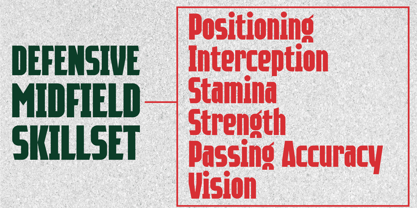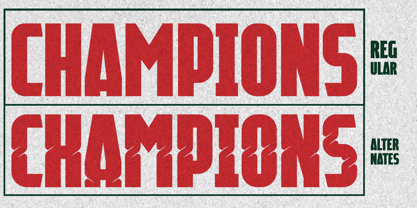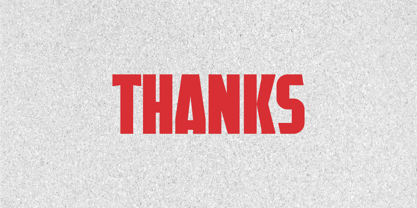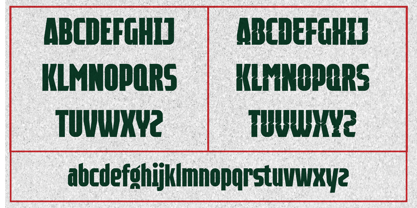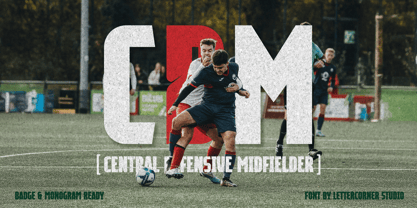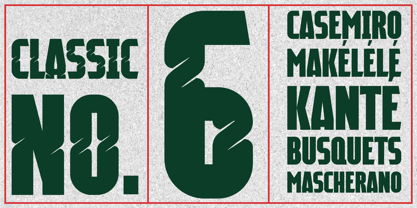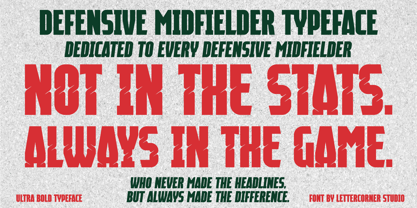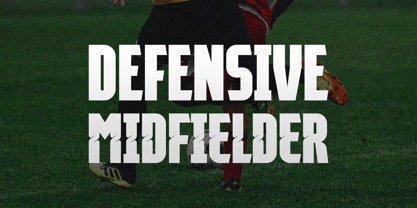
Defensive Midfielder
Defensive Midfielder is a bold, high-impact display typeface built for speed, strength, and grit — inspired by the players who control the game from the middle of the pitch without ever chasing the spotlight.
Every letterform carries the raw, torn-edge texture of a hard-fought match: sharp diagonal cuts, rugged terminals, and a slightly weathered finish that feels equal parts sportswear label and street-level grunge. The result is a typeface that commands attention on posters, jerseys, badges, and branding — anywhere you need type that hits as hard as a last-ditch tackle.
The family includes both Regular and Italic styles, each paired with a full set of stylistic alternates featuring the signature slash-cut detailing on select letters. Mix and match the standard and alternate glyphs freely to create dynamic, one-of-a-kind lockups — perfect for team crests, monograms, jersey numbers, and sports-themed lettering.
Defensive Midfielder is Ultra Bold by design — built for headlines, logotypes, and large-scale display use rather than body text. It shines in:
• Sports branding, team logos, and jersey typography
• Streetwear and athletic apparel graphics
• Posters, social media graphics, and motion titles
• Badge and monogram design
• Bold editorial headlines with an athletic edge
Whether you're designing for a football club, a sports brand, or simply need type with attitude and muscle, Defensive Midfielder delivers presence without saying a word — not in the stats, always in the game.
• Regular + Regular Alternate
• Italic + Italic Alternate